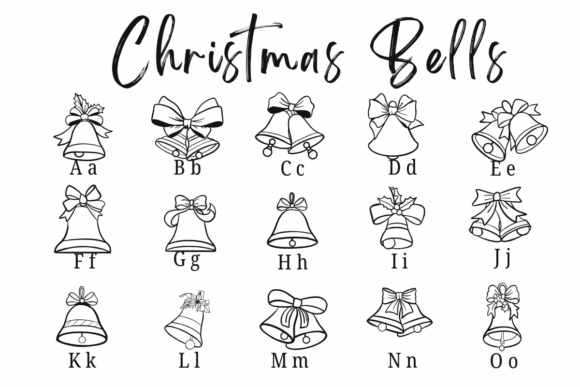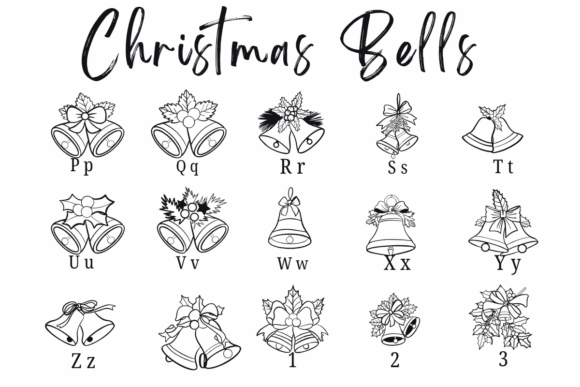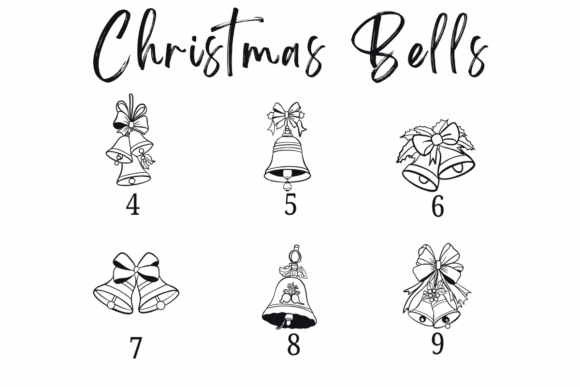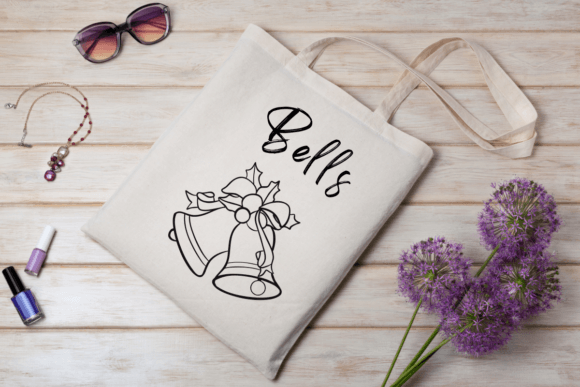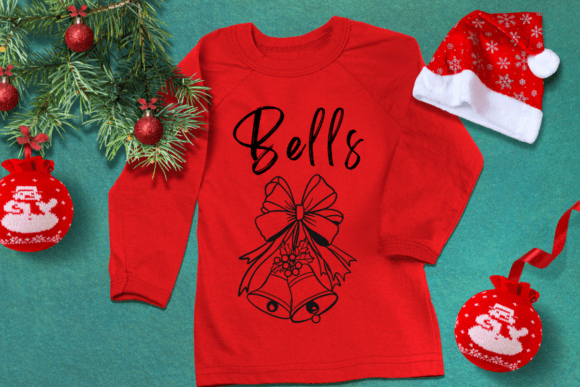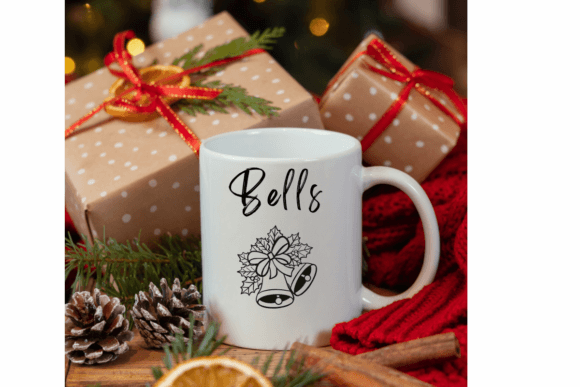
Deck the Halls with Christmas Bells Font: A Festive Dingbat Font for Holiday Cheer
Are you looking for a fun and festive way to add some holiday cheer to your designs and crafts? Look no further than the Christmas Bells Font, a delightful dingbat font featuring decorative illustrations of Christmas bells. This charming font is perfect for designers, crafters, and anyone looking to add a touch of festive charm to their holiday projects.
What is Christmas Bells Font?
Christmas Bells Font is a unique dingbat font that features beautiful, decorative illustrations of Christmas bells. Each character in the font is carefully designed to resemble a festive Christmas bell, complete with intricate details and a playful touch. The font is perfect for use in a variety of holiday-themed projects, from Christmas cards and invitations to decorations and gift tags.
Key Features of Christmas Bells Font
- Fun and festive designs: Each character in the Christmas Bells Font is designed to look like a decorative Christmas bell, complete with intricate details and a playful touch.
Uses for Christmas Bells Font
Christmas Bells Font is a versatile font that can be used in a variety of holiday-themed projects, including:
- Christmas cards and invitations: Add a touch of festive charm to your holiday cards and invitations with the Christmas Bells Font.
- Holiday decorations: Use the font to create festive decorations, such as garlands, banners, and gift tags.
- Craft projects: The font is perfect for use in a variety of craft projects, such as scrapbooking, paper crafting, and DIY gifts.
- Social media graphics: Add some holiday cheer to your social media graphics with the Christmas Bells Font.
Tips for Using Christmas Bells Font
Here are a few tips for using the Christmas Bells Font in your holiday projects:
- Experiment with different colors: The Christmas Bells Font looks great in a variety of colors, so don’t be afraid to experiment and find the perfect color for your project.
- Mix and match with other fonts: The font pairs well with a variety of other fonts, so feel free to mix and match to create a unique look.
- Use it sparingly: The Christmas Bells Font is a bold and eye-catching font, so use it sparingly to add a touch of festive charm to your project.
Christmas Bells Font is a fun and festive dingbat font that’s perfect for adding a touch of holiday cheer to your designs and crafts. With its decorative illustrations of Christmas bells and easy-to-use design, this font is a must-have for designers, crafters, and anyone looking to add some festive charm to their holiday projects. So why wait? Download Christmas Bells Font today and start creating your own festive holiday projects!